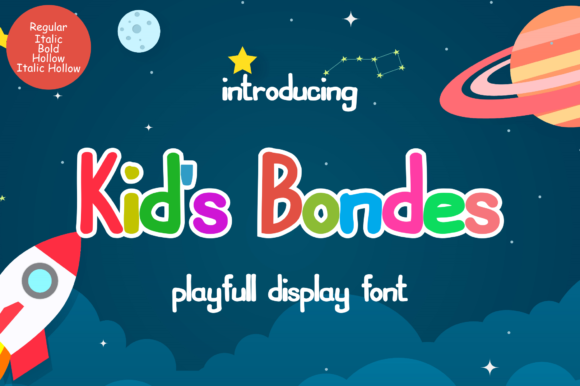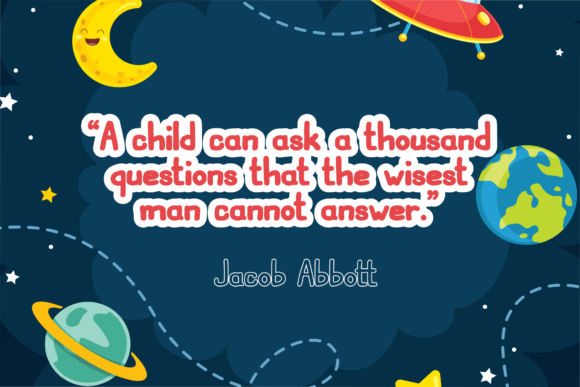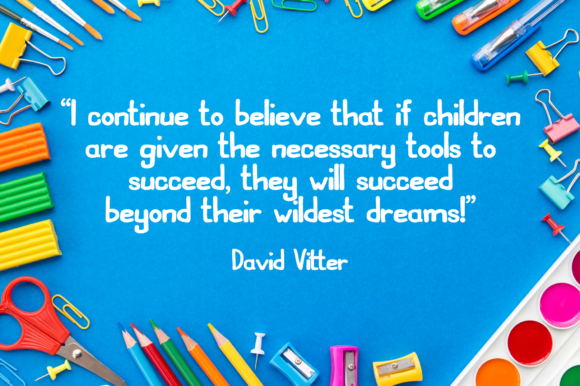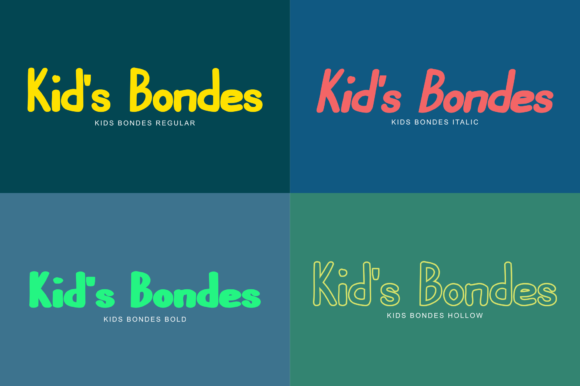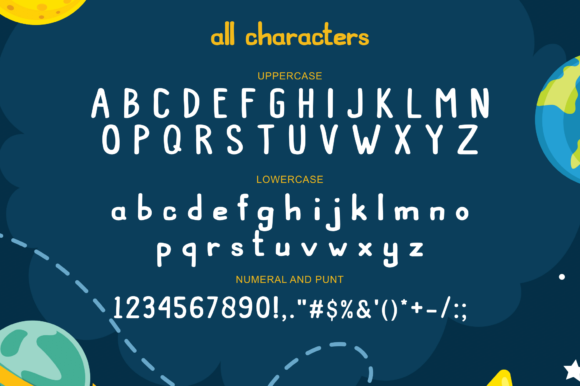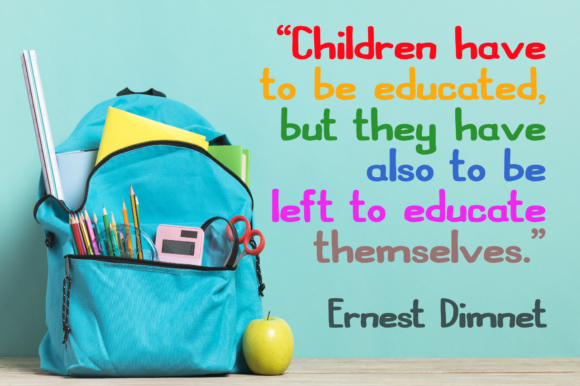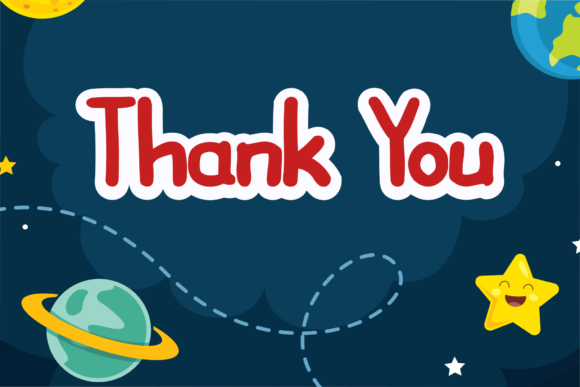
The Joy of Typography: Introducing Kids Bondes Font
Do you remember the feeling of creating something with your little hands, be it a handmade card for mom or a colorful poster for the classroom? For many of us, those moments are etched in our memories as some of the most joyful and creative times of our lives. As designers, we strive to recreate that same sense of wonder and excitement in the projects we work on.
That’s where the Kids Bondes Font comes in – a vibrant and playful display font that’s perfect for capturing the essence of childhood. With its chunky letters and bright colors, this font is sure to add a touch of authenticity and whimsy to any design. Whether you’re working on a children’s activity, a school project, or just a fun little something for a friend, Kids Bondes Font is the perfect choice to make your designs come alive!
- Unique Characteristics: A playful, child-friendly font with rounded edges and smooth curves, perfect for creating engaging content for kids
Designer Review: Kids Bondes Font
Overall, I think the Kids Bondes Font is a decent choice for kids’ content. ✨ The font is playful, fun, and perfect for capturing a child’s imagination. The letterforms are rounded and smooth, making it easy to read and enjoyable to look at. The font’s use of colors is also a nice touch, adding a pop of vibrancy to any design.
Here are some things that work well about the font:
- ✨ The font’s playfulness and whimsy make it perfect for kids’ content.
- ✨ The rounded letterforms are easy to read and fun to look at.
- ✨ The font’s color options add a nice touch of personality to designs.
- ⚠️ The font may not be suitable for more formal or professional designs.
- ⚠️ The font’s playfulness may not be suitable for all age groups or cultures.
Overall, I think the Kids Bondes Font is a great choice for kids’ content, but it may not be the best fit for more formal or professional designs. With its playful and fun personality, it’s sure to capture the hearts of children and parents alike.
The Kids Bondes Font is ideal for children’s book illustrations, nursery decor, and educational materials. To get the most out of it, use it in bold and playful designs, and pair it with bright colors and whimsical graphics.
Some common use cases include:
- Children’s book covers and illustrations
- Nursery decor and wall art
- Education materials and worksheets
Alternatives to Kids Bondes Font
Cream Soda Font is a playful, handwritten font perfect for adding a touch of whimsy to your designs. It’s great for use in children’s books, advertising, and social media graphics. Compared to Kids Bondes Font, Cream Soda Font has a more casual, laid-back feel, making it ideal for informal designs.
Great Vibes Font is a modern, handwritten script font suitable for a wide range of applications, from branding to editorial content. It’s more elegant and sophisticated than Kids Bondes Font, making it suitable for upscale designs. Use Great Vibes Font when you want to convey a sense of luxury and sophistication.
Carolyna Pro Font is a stylish, modern script font that’s perfect for adding a touch of elegance to your designs. It’s great for use in branding, advertising, and editorial content. Compared to Kids Bondes Font, Carolyna Pro Font has a more refined and sophisticated feel, making it ideal for formal designs.
Literata Font
Literata Font is a beautiful, modern script font that’s perfect for use in branding, advertising, and editorial content. It’s more elegant and refined than Kids Bondes Font, making it suitable for upscale designs. Use Literata Font when you want to convey a sense of sophistication and luxury.
Q: Is Kids Bondes Font available in a range of languages?